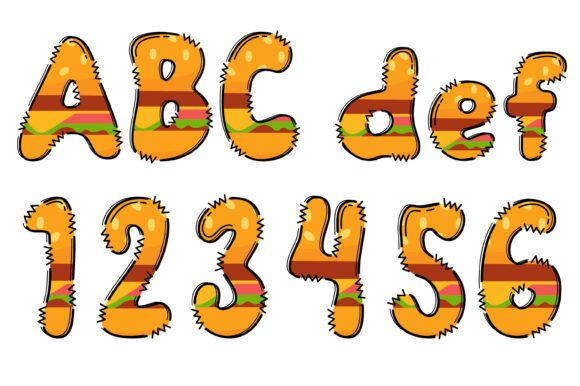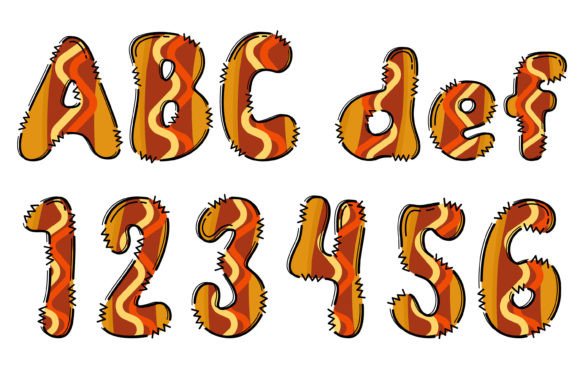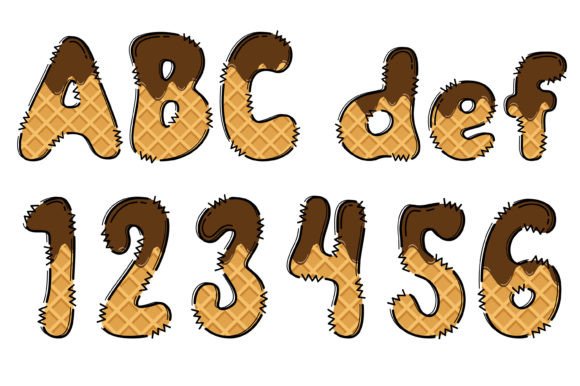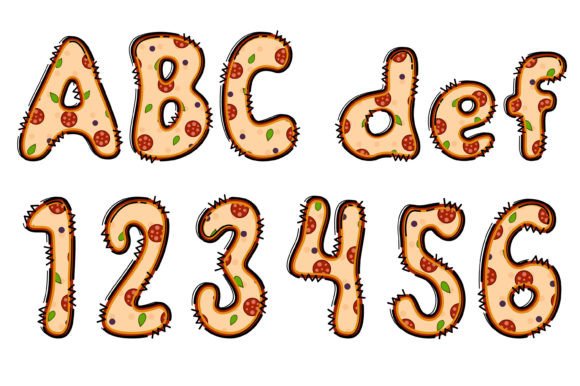
Introduction to Junk Food Bundle Font
Do you remember the excitement of rummaging through a craft box as a child, filled with colorful markers, glitter, and stickers? The thrill of bringing a creative project to life, watching your imagination unfold into something tangible and beautiful. As a designer, you’re no stranger to that feeling. You understand the importance of having the right tools to bring your vision to life. That’s where the Junk Food Bundle Font comes in – a treasure trove of whimsical fonts perfect for adding a playful touch to your designs.
This versatile font bundle is a must-have for any designer looking to create eye-catching designs for kids’ books, posters, invitations, and greeting cards. With its transparent background and high-quality design, the Junk Food Bundle Font is a valuable resource for anyone looking to add a touch of creativity to their work.
Key Features of Junk Food Bundle Font
- Unique blend of bold and playful typography for creative projects
- Includes 5 font styles with transparent background for easy customization
- Perfect for designers and artists looking for a fun and quirky design element
Honest Review: Junk Food Bundle Font
As a designer, I’ve had the chance to try out many free fonts, but the Junk Food Bundle Font is one that really caught my eye. This creative project font is perfect for those who want a high-quality design resource without breaking the bank.
What works well: ✨ The Junk Food Bundle Font is incredibly versatile and can be used for a wide range of creative projects. The font is free to download, making it an excellent choice for designers on a budget. The font also comes with a transparent background, which makes it easy to use on any background.
What doesn’t work well: ⚠️ The font may not be suitable for formal or professional projects, as it has a more playful and casual feel to it.
Overall impression: I was really impressed with the Junk Food Bundle Font and would highly recommend it to designers who are looking for a high-quality, free design resource. It’s perfect for creative projects and can be used on a wide range of backgrounds.
The Junk Food Bundle Font is a high-quality design resource perfect for creative projects that require a unique and playful touch. With its free download option, you can easily integrate this font into your next design project.
To get the most out of the Junk Food Bundle Font, use it on a transparent background to create a modern and sleek design. You can also combine it with other design elements, such as graphics and images, to add visual interest to your design.
The Junk Food Bundle Font is perfect for creative projects that require a playful and unique touch, such as:
- Food and beverage branding
- Marketing and advertising materials
- Wedding and event invitations
- Blog and social media graphics